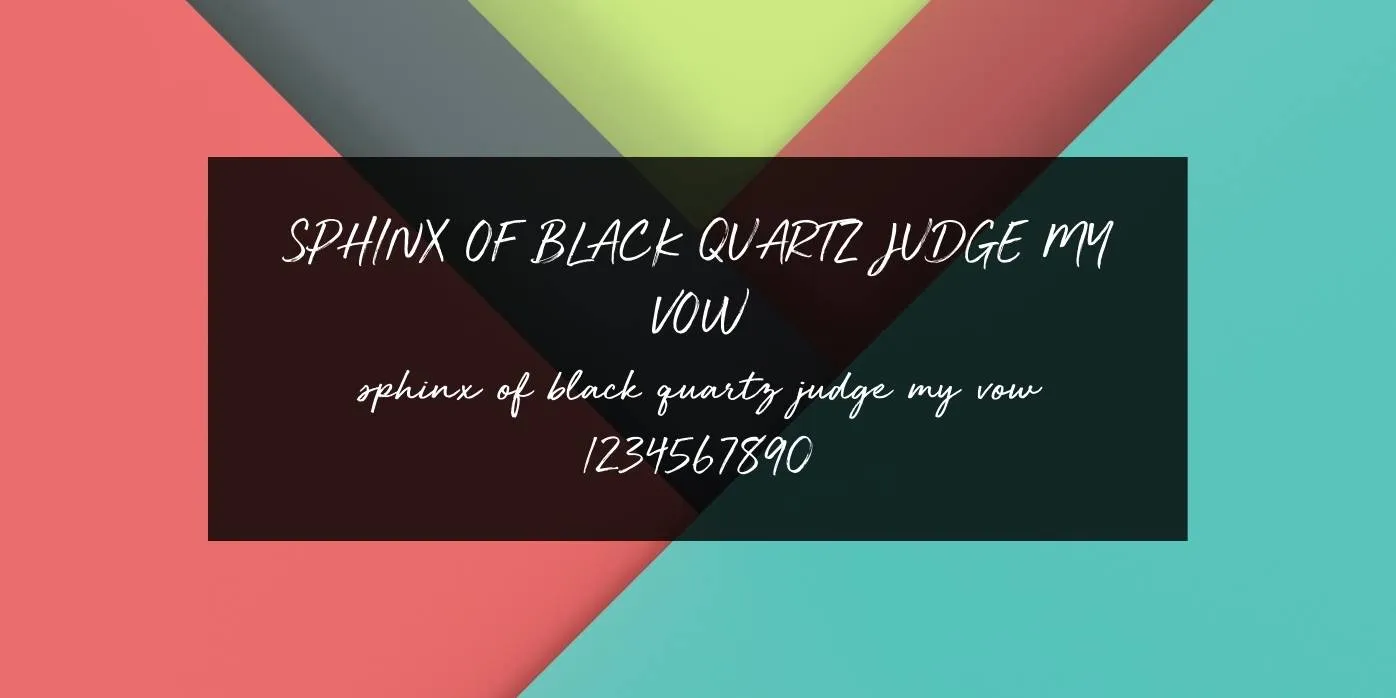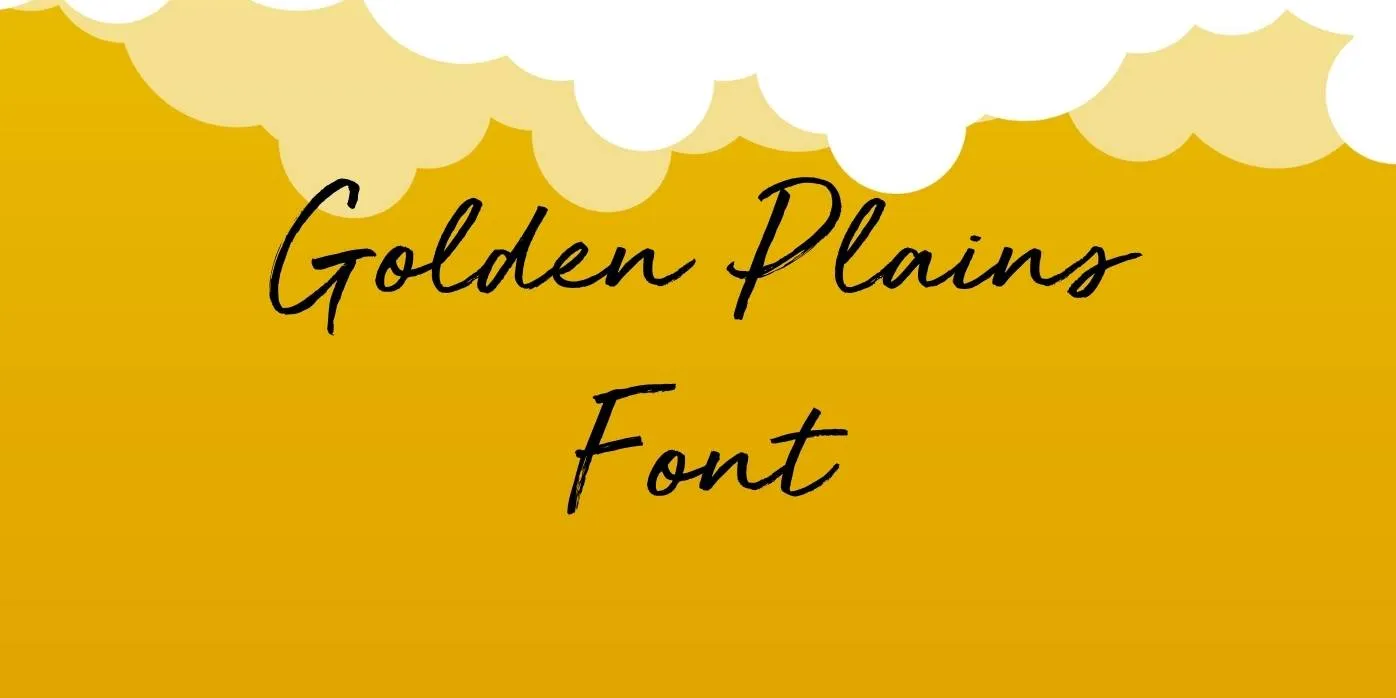
Golden Plains Font
Today, we discuss Golden Plains Font which belongs to the script family. This typeface was designed and shared by BLKBK Fonts. This font includes uppercase and lowercase letters, numbers, and punctuation marks. It also supports multiple languages.
This font is free for personal and commercial use. This script typeface has a rough texture that gives it a unique look. This awesome font was inspired by vintage lettering and has a slightly distressed appearance. Golden Plains Typeface is perfect for branding, advertising, web design, social media, and more.